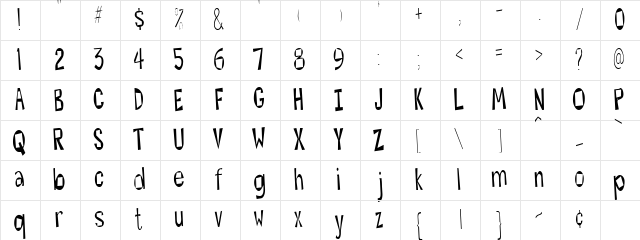
Hesitant Normal
Design Context for Hesitant Typeface
Hesitant is a composed and adaptable typeface that performs quietly and consistently across a wide range of design contexts.